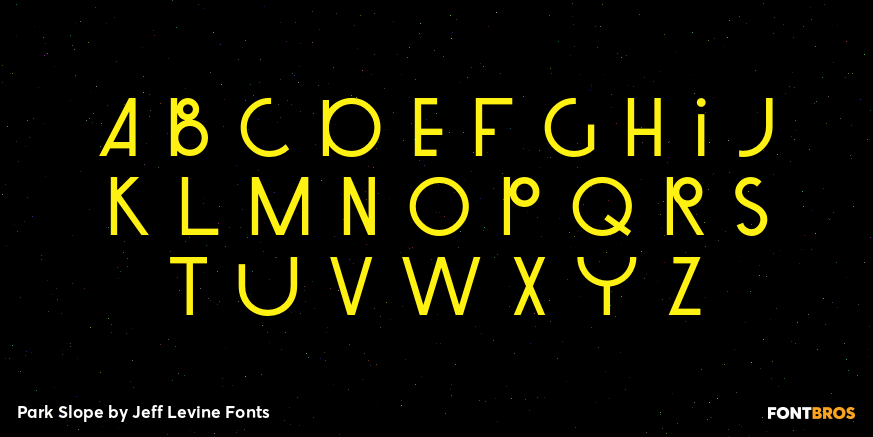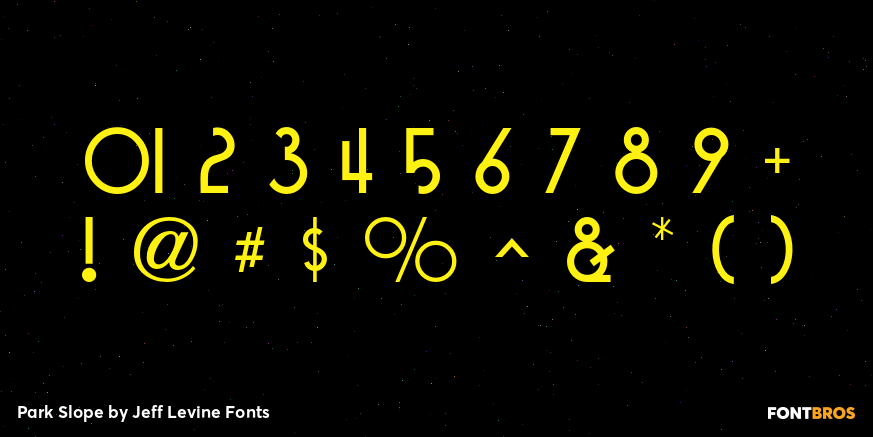
Park Slope
The free-form geometric shapes of the lettering on a vintage piece of sheet music entitled "Four Pictures" is the basis for Park Slope JNL, named for a neighborhood in Brooklyn, New York.